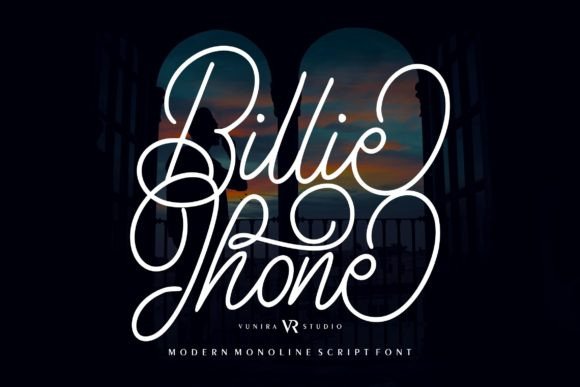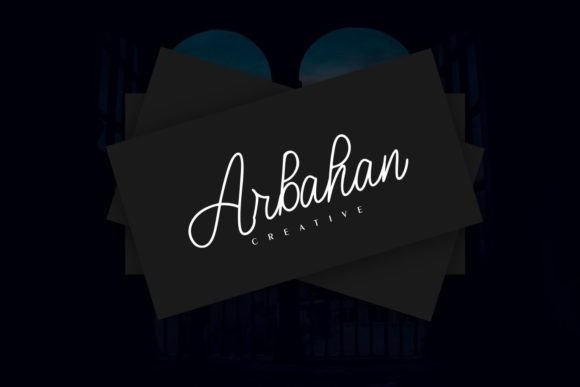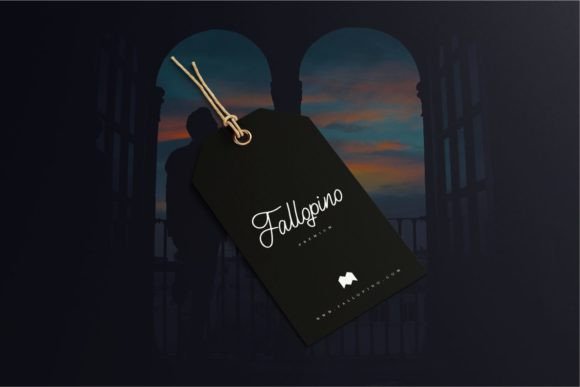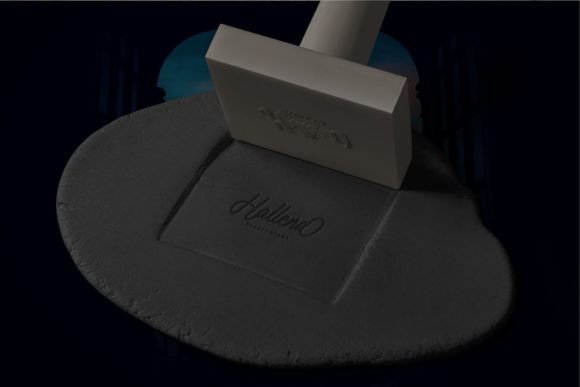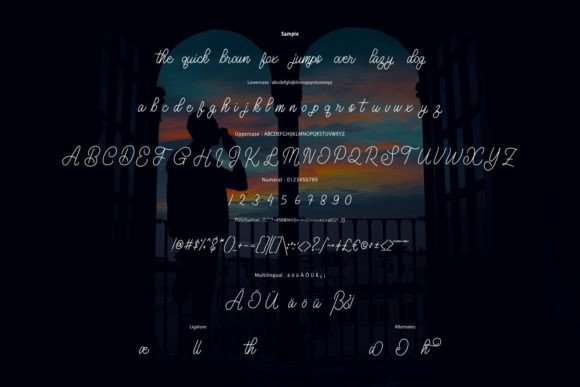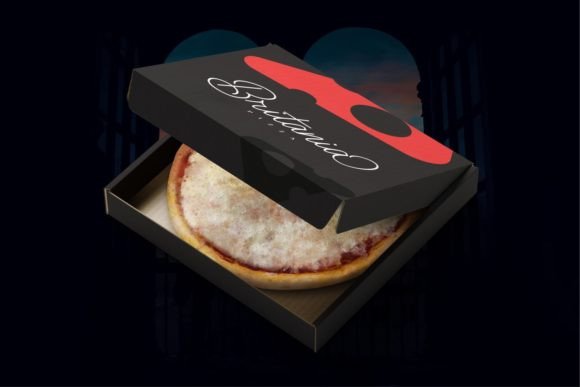
Billie Jhone Font
A Modern and Cool Handwritten Script
Billie Jhone is a modern handwritten script font designed to bring a cool and stylish touch to your designs. With its clean, flowing strokes and distinct character, this font offers a perfect balance of contemporary style and timeless elegance. Whether you’re designing logos, invitations, or social media content, Billie Jhone enhances your project with a unique, bold appeal.
Its graceful curves and sleek lines make it ideal for both professional and creative projects. Billie Jhone’s distinct style ensures your work stands out while maintaining an air of sophistication.
Billie Jhone is a versatile font that fits a wide range of creative uses. It’s perfect for logos, business cards, and branding materials. The font’s bold and unique design ensures that your brand is memorable and instantly recognizable.
This font is also ideal for wedding invitations, greeting cards, and promotional materials. The modern yet elegant design adds a personal touch to any occasion, making your designs feel both special and stylish.
Billie Jhone works wonderfully for social media graphics, website headers, and marketing materials. Its contemporary look ensures that your content grabs attention and leaves a lasting impression.
Despite its artistic and stylish nature, Billie Jhone remains legible at any size. The balanced letter spacing ensures that your text is clear and easy to read, whether you’re using it for large headings or smaller body text.
Pair Billie Jhone with a clean sans-serif font to create contrast and balance. Use Billie Jhone for titles and combine it with the sans-serif font for body text. This ensures your design is visually appealing and easy to read.
To highlight Billie Jhone’s modern elegance, use minimalist backgrounds and neutral color schemes. Shades like soft pastels, ivory, and warm tones work well with this font, helping it stand out without overwhelming your design.
For wedding materials, luxury branding, or social media graphics, consider adding subtle textures or geometric elements that complement Billie Jhone’s chic style. Keep your layout simple and clean to allow the font to be the focal point.
Think about the mood you want to create. Billie Jhone is perfect for designs that need to feel modern, bold, and timeless, with a sophisticated touch.
Billie Jhone is more than just a handwritten script font; it’s a creative tool that helps you craft bold, stylish designs. Its smooth strokes and distinct character make it ideal for a wide range of projects.
Adding Billie Jhone to your font collection means you’ll always have a modern and elegant option for your creative work. Whether you’re working on branding, invitations, or social media graphics, this font adapts seamlessly to any design.